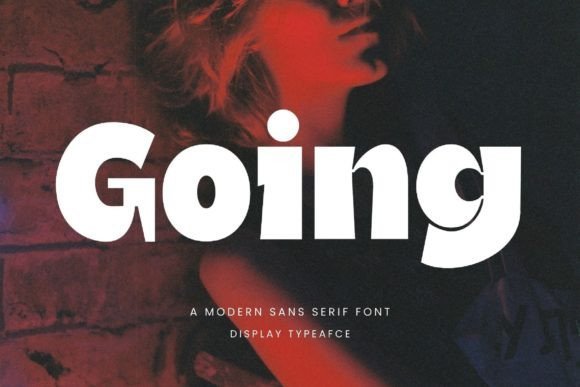
Unlocking the Power of Going Font: Elevate Your Designs
As a designer, you’ve likely found yourself staring at a blank canvas, searching for the perfect font to bring your creative vision to life. That moment of inspiration, when the perfect combination of style and substance clicks into place, is what drives us to create something truly special. For many, that perfect font is Going Font – a sleek and modern display sans serif font that exudes simplicity and sophistication.
Designed with clean lines and a contemporary aesthetic, Going Font is perfect for creating eye-catching headlines, logos, and branding materials that leave a lasting impression. Its balanced letterforms and versatile nature make it an ideal choice for both digital and print projects, ensuring your content stands out with a touch of elegance.
Whether you’re a seasoned pro or just starting out, Going Font is a valuable addition to any designer’s toolkit. Its adaptability and refined look make it a go-to choice for creating stunning visual identities that capture attention and leave a lasting impression.
Key Features of “Going Font”
- Font Family: Going Font is a sans-serif font family designed for digital use, available in 4 weights (Light, Regular, Medium, and Bold).
- Character Set: The font includes a wide range of characters, including Latin, Cyrillic, and Greek alphabets, as well as punctuation and symbols.
- Size: The font is designed to be highly legible at small sizes, making it ideal for digital use. It is available in font sizes ranging from 8 to 72 points.
- Resolution: The font is designed to be scalable and resolution-independent, ensuring that it looks great at any resolution or screen size.
- Unique Characteristics: Going Font features a unique blend of modern and minimalist design elements, making it perfect for use in digital products, apps, and websites.
Going Font Review
As a designer, I’ve had the chance to work with Going Font, and I’m excited to share my honest review with you. ✨ One thing that really stands out is the beautiful, modern aesthetic it brings to any design. The clean lines, elegant typography, and clever use of whitespace make it a great choice for a wide range of projects.
- ✨ Beautiful, modern aesthetic that’s perfect for contemporary designs
- ✨ Highly customizable to fit your specific design needs
- ✨ Excellent support for various languages and scripts
- ✨ Robust documentation and community resources
However, there are a few limitations I’d like to mention:
- ⚠️ Not as versatile as some other fonts in certain situations (e.g. body text, small text)
- ⚠️ Not as widely supported as some other fonts on older systems or browsers
Overall, I’m really impressed with Going Font, and I think it’s a great choice for designers looking for a modern, stylish font. While it may have some limitations, the benefits far outweigh the drawbacks. With a bit of creativity and experimentation, I think you’ll find that Going Font is a valuable addition to your design toolkit.
“Going Font” is ideal for creating playful and creative designs. Use it for:
- Logo design and branding.
- Infographics and data visualization.
- Children’s book illustrations and educational materials.
Remember to use “Going Font” in moderation to avoid overwhelming the design.